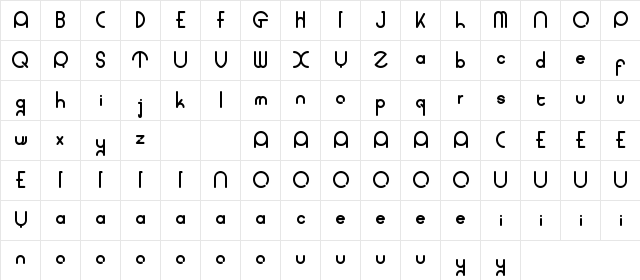
Coet Demo Bold
| Foundry | Edric Studio |
| Designer | fajar Saepul Rohman |
Design Context for Coet Demo Typeface
Coet Demo is a composed and adaptable typeface that performs quietly and consistently across a wide range of design contexts. Its bold stroke weight gives it real presence on the page.